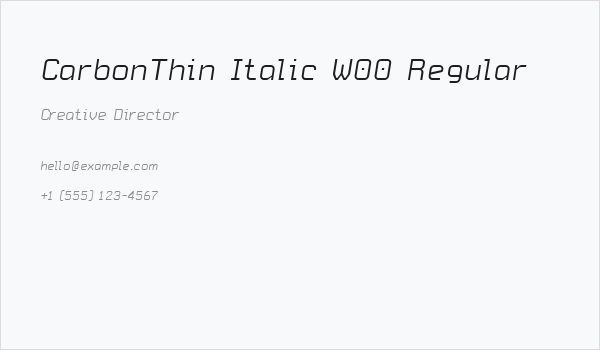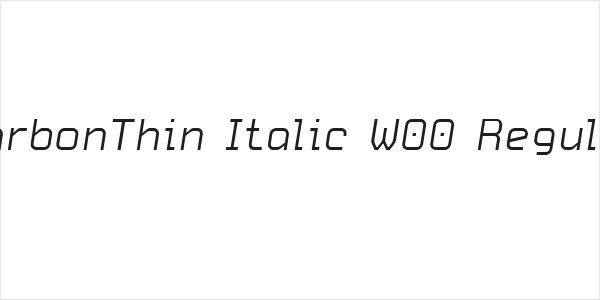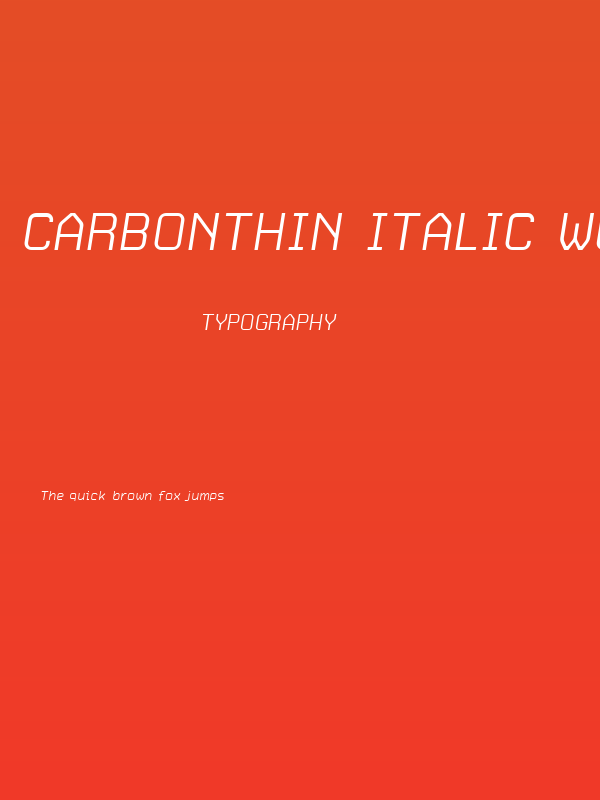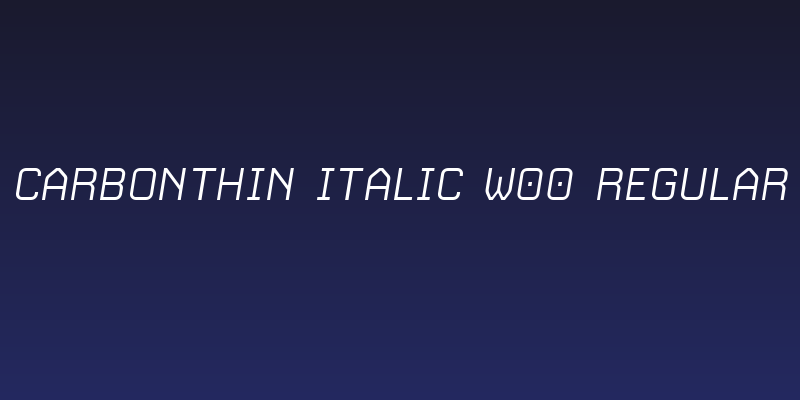
CarbonThin Italic W00 Regular Font
CarbonThin Italic W00 Regular Description
This font features a sleek, modern design with a thin, italicized style. The characters are slightly slanted, giving a dynamic and forward-moving appearance. The strokes are consistent and clean, with rounded edges that soften the overall look. The font maintains a uniform thickness throughout, contributing to its minimalist aesthetic. It is highly legible, making it suitable for both digital and print media. The numbers and special characters are designed to match the letters in style, ensuring a cohesive look across all text elements.
| Proposed Projects | Ideal for tech branding, modern websites, app interfaces, and minimalist graphic design projects. |